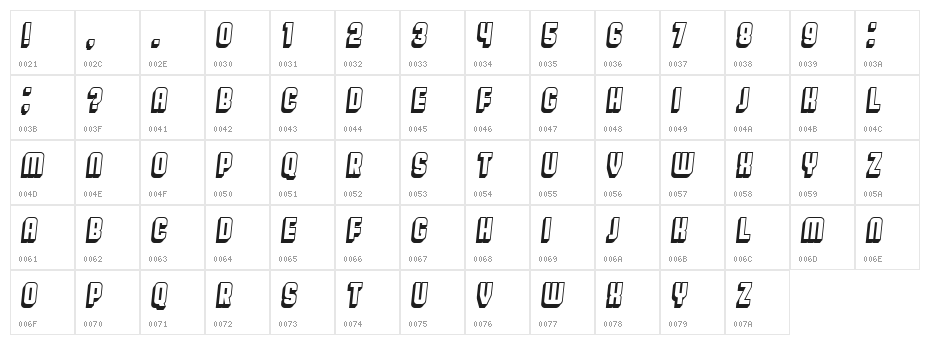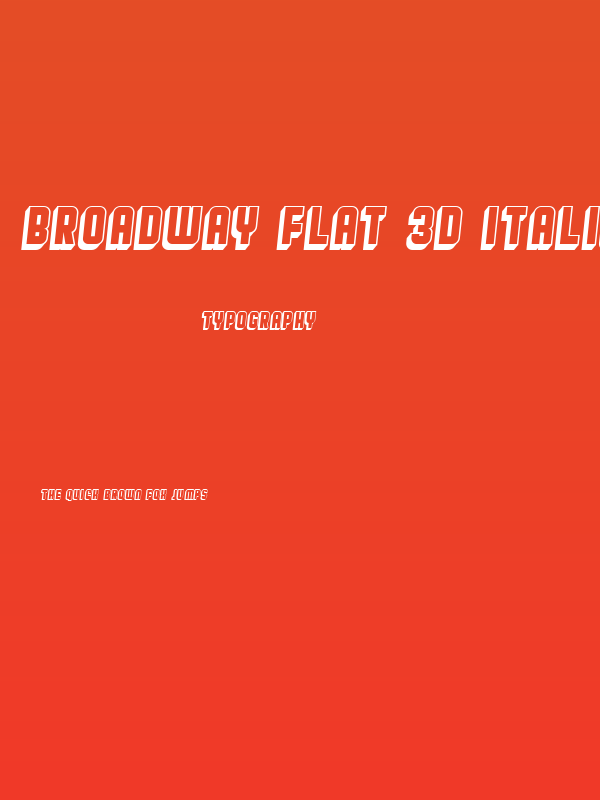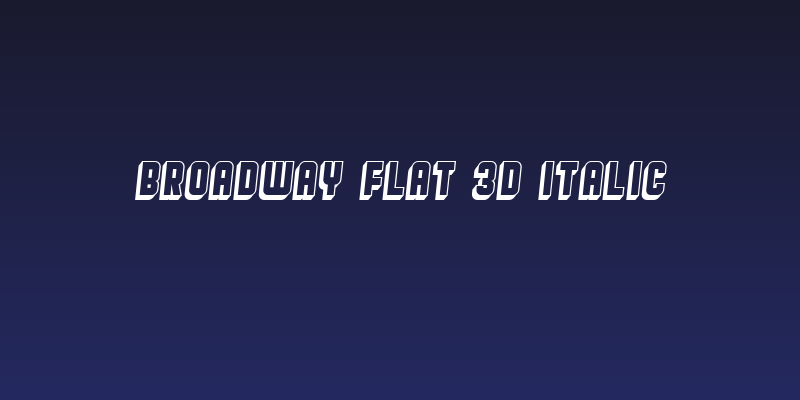
Broadway Flat 3D Italic Font
Broadway Flat 3D Italic Description
This font features a bold, three-dimensional appearance with a flat, italicized style. The characters are designed with a shadow effect that gives them a striking, standout look, making them ideal for attention-grabbing headlines or titles. The uppercase letters are uniformly styled, with a consistent stroke width that enhances their boldness. The numerals and special characters maintain the same 3D effect, ensuring a cohesive look across all text elements. The italic slant adds a dynamic feel, while the flat design keeps it modern and clean.
| Proposed Projects | Ideal for posters, signage, branding, and any project requiring a bold, eye-catching typeface. |